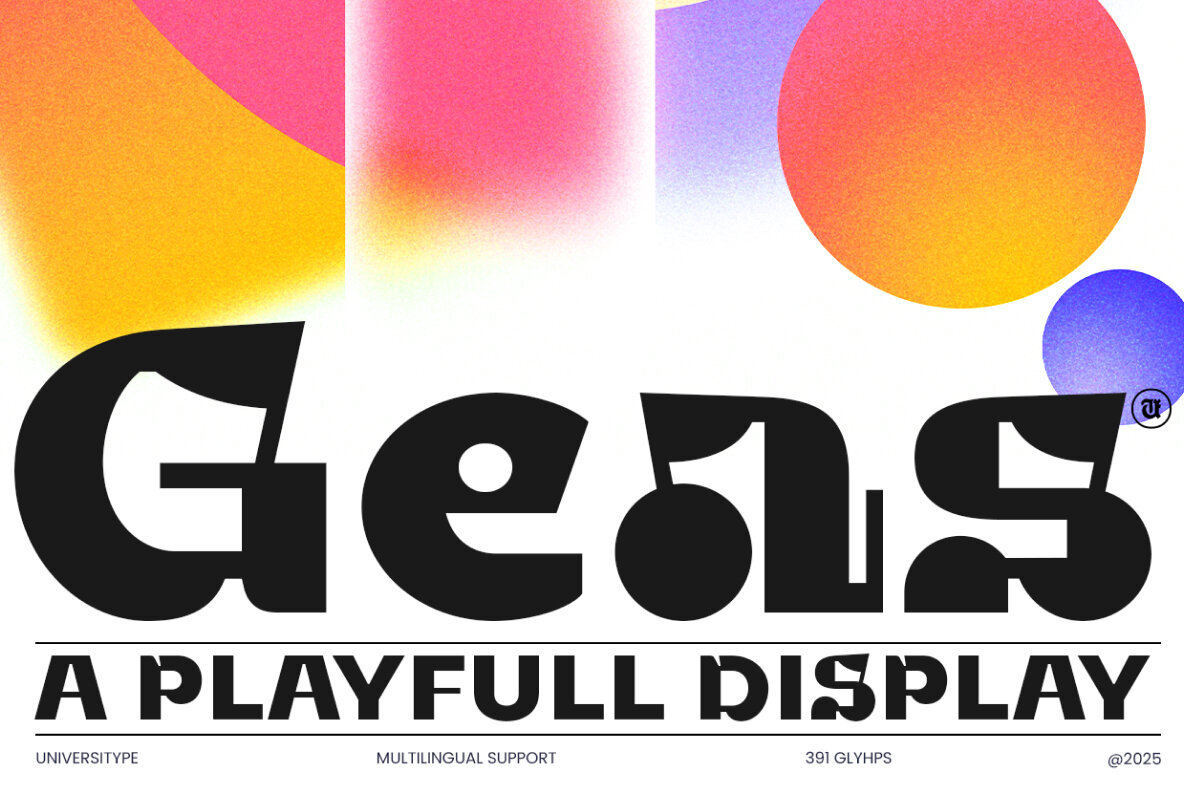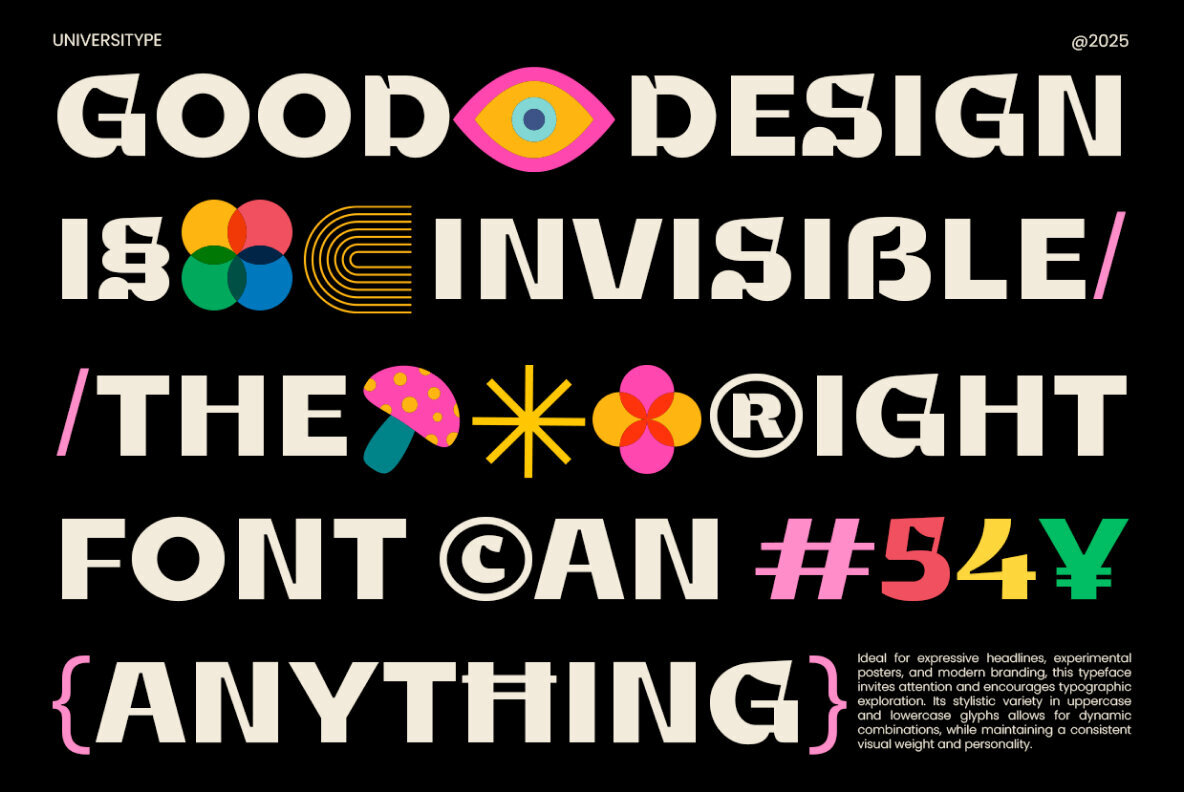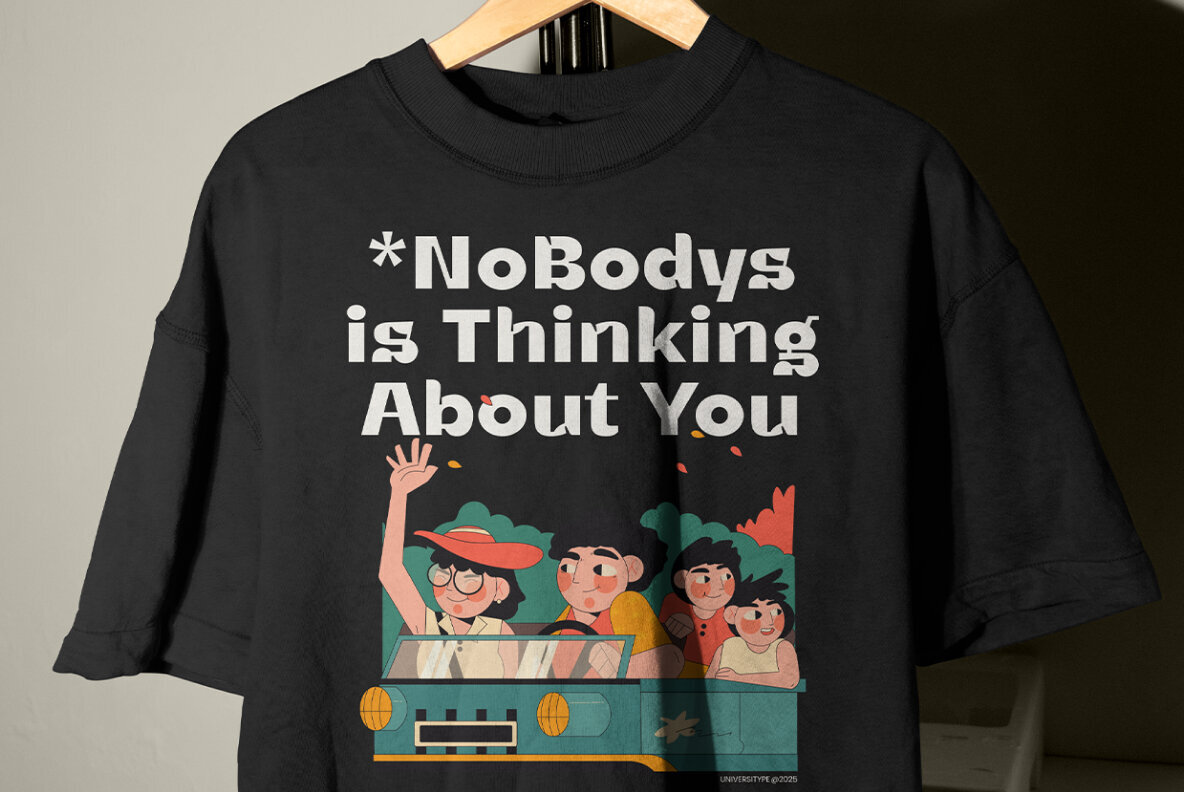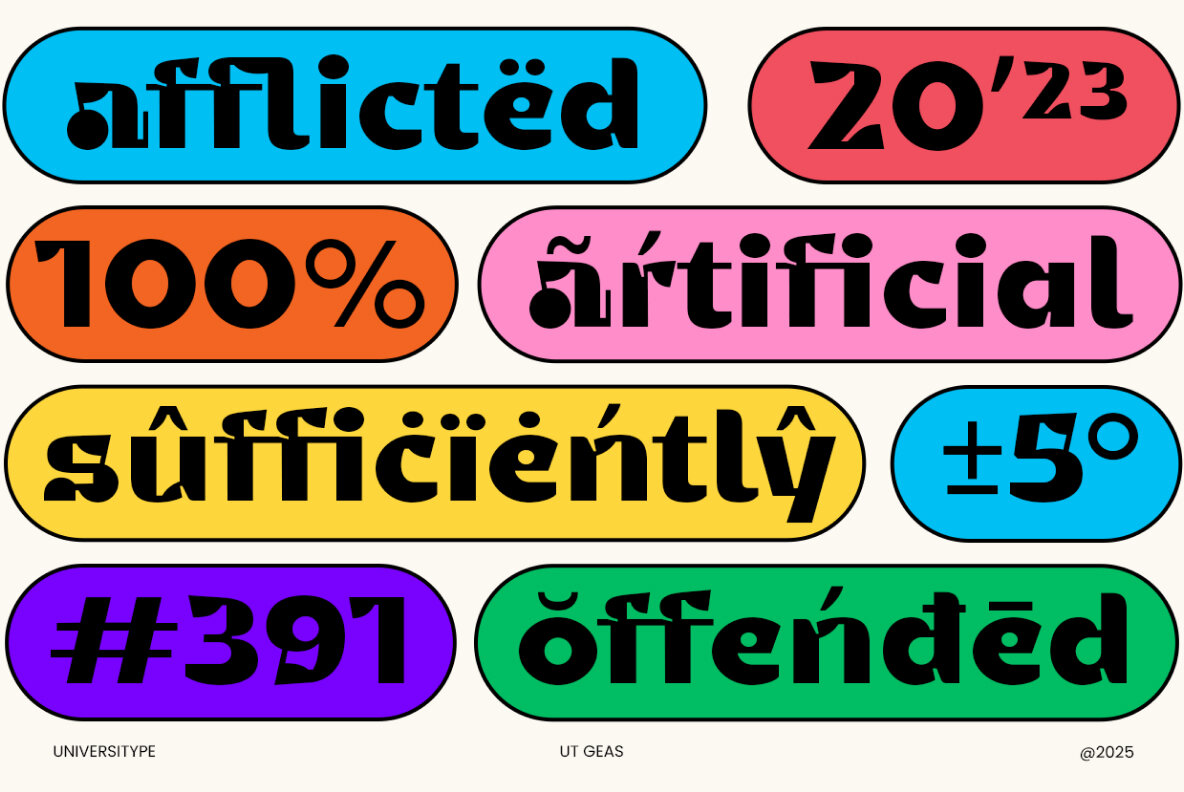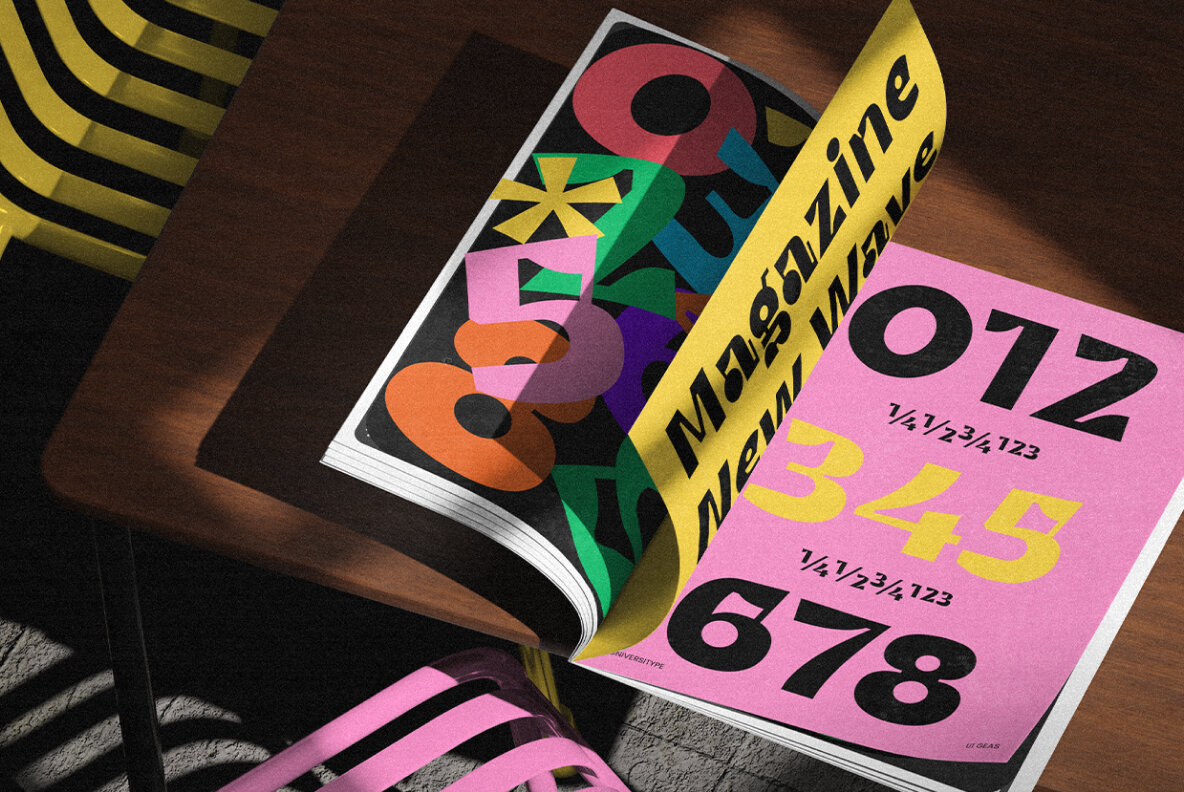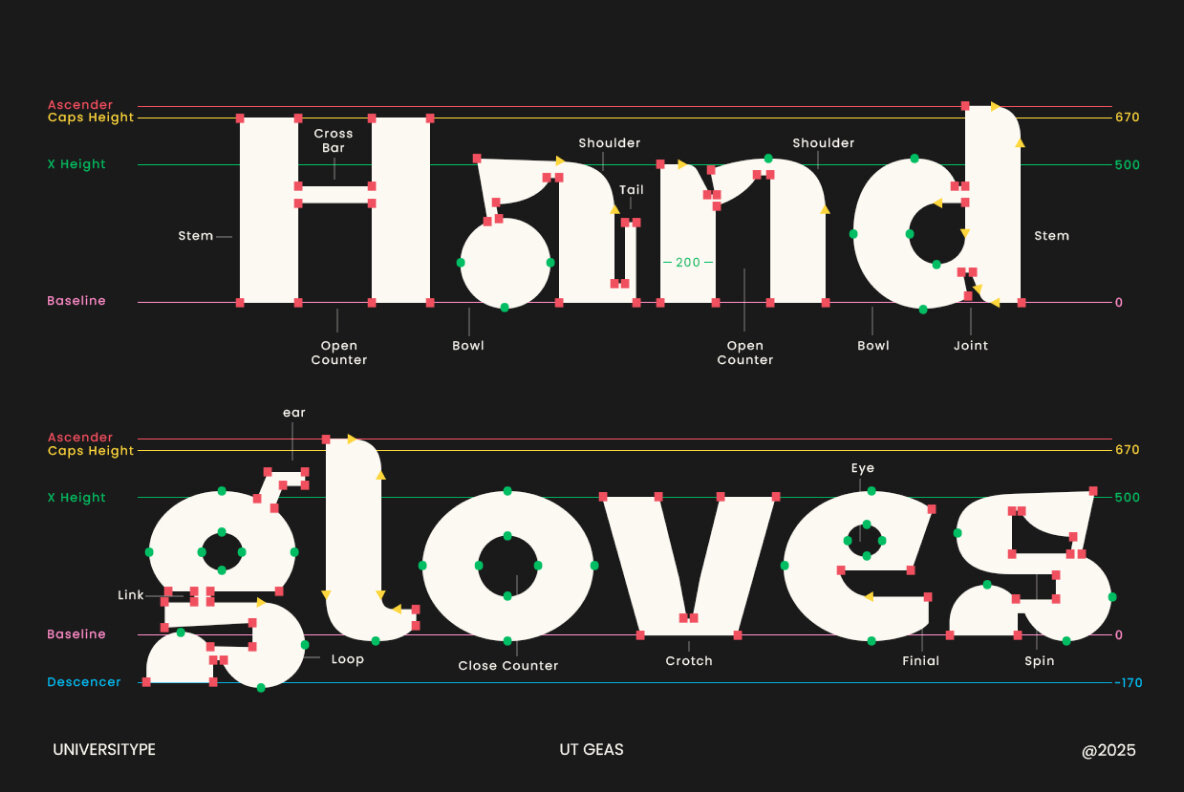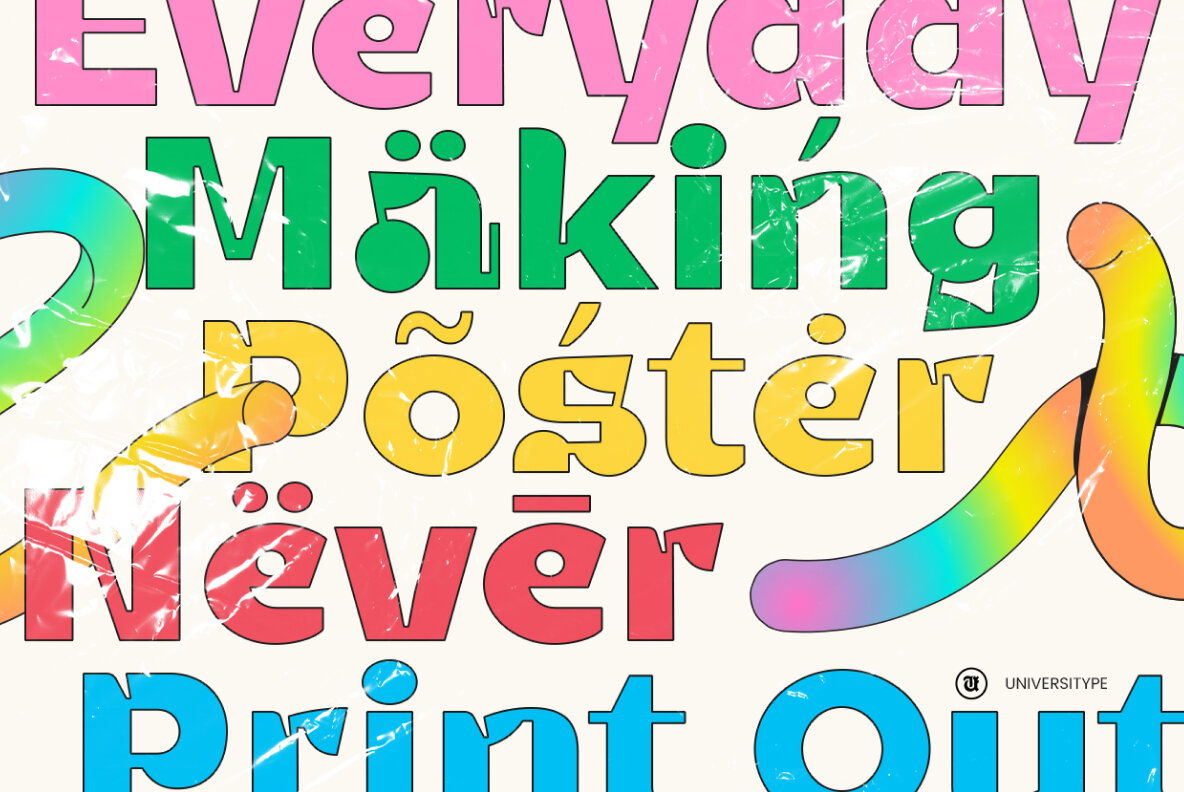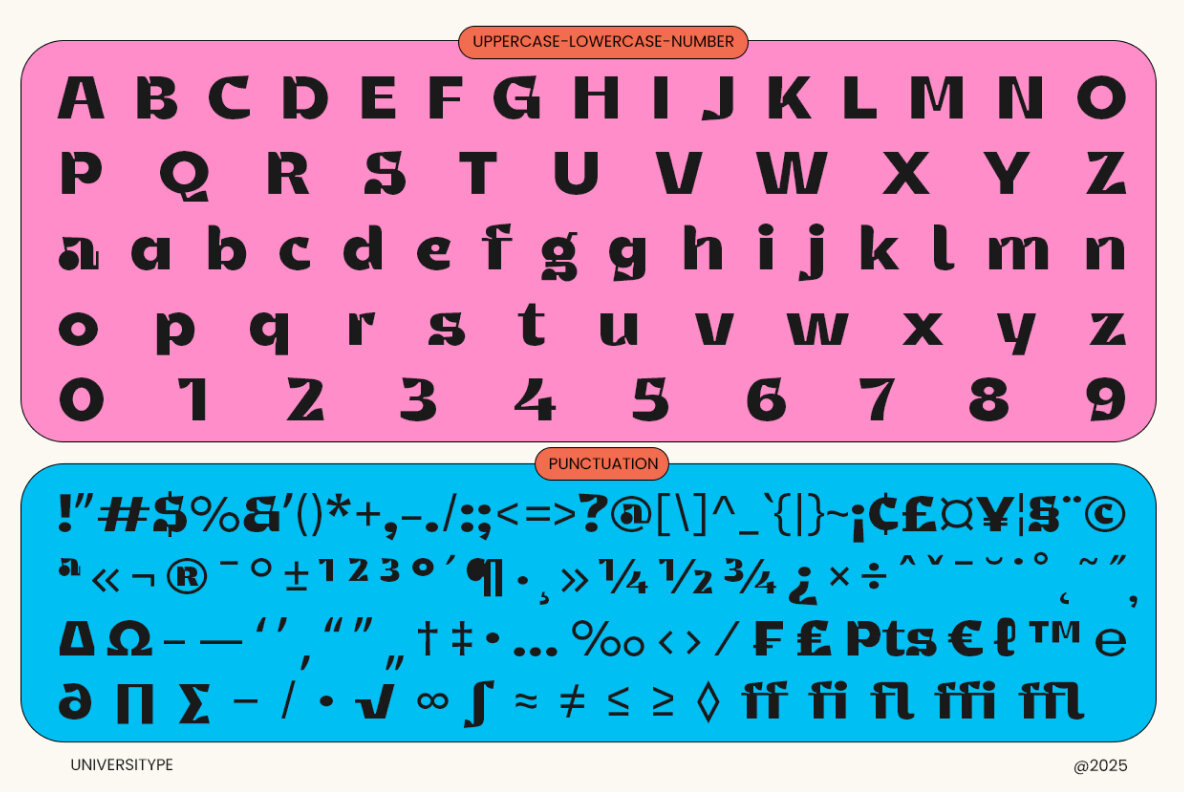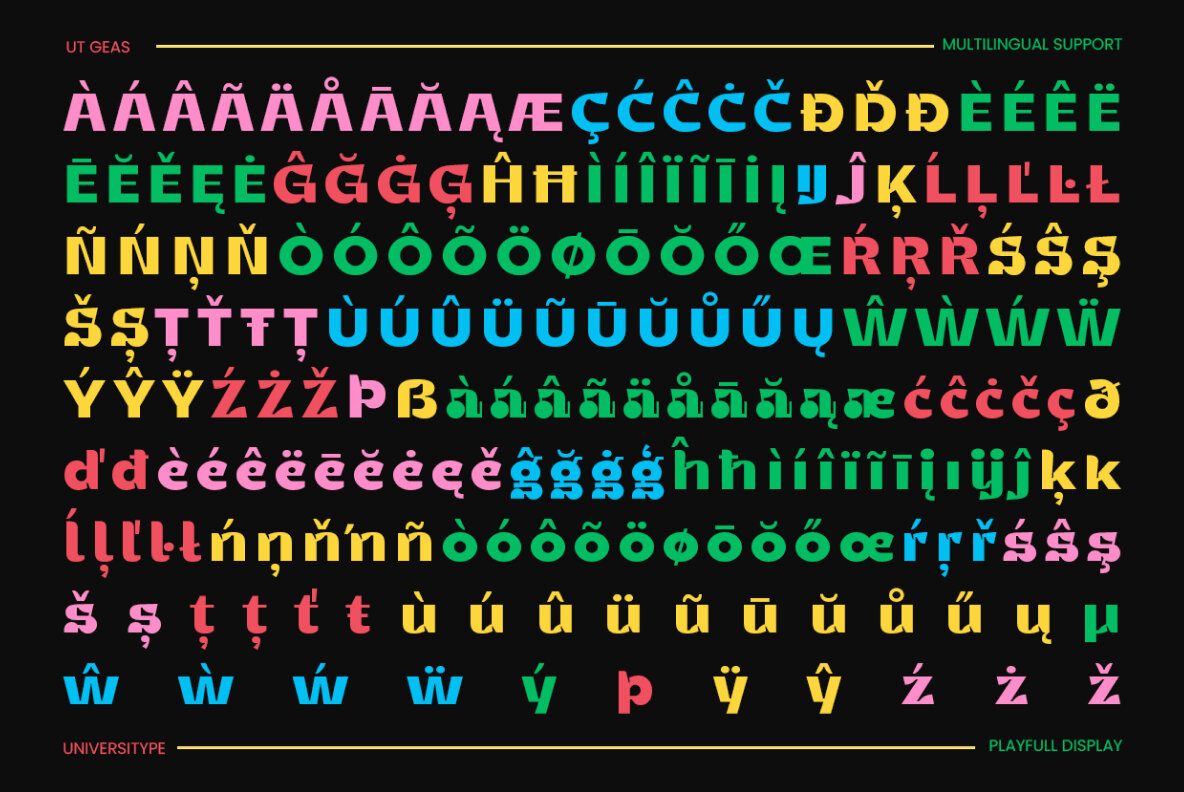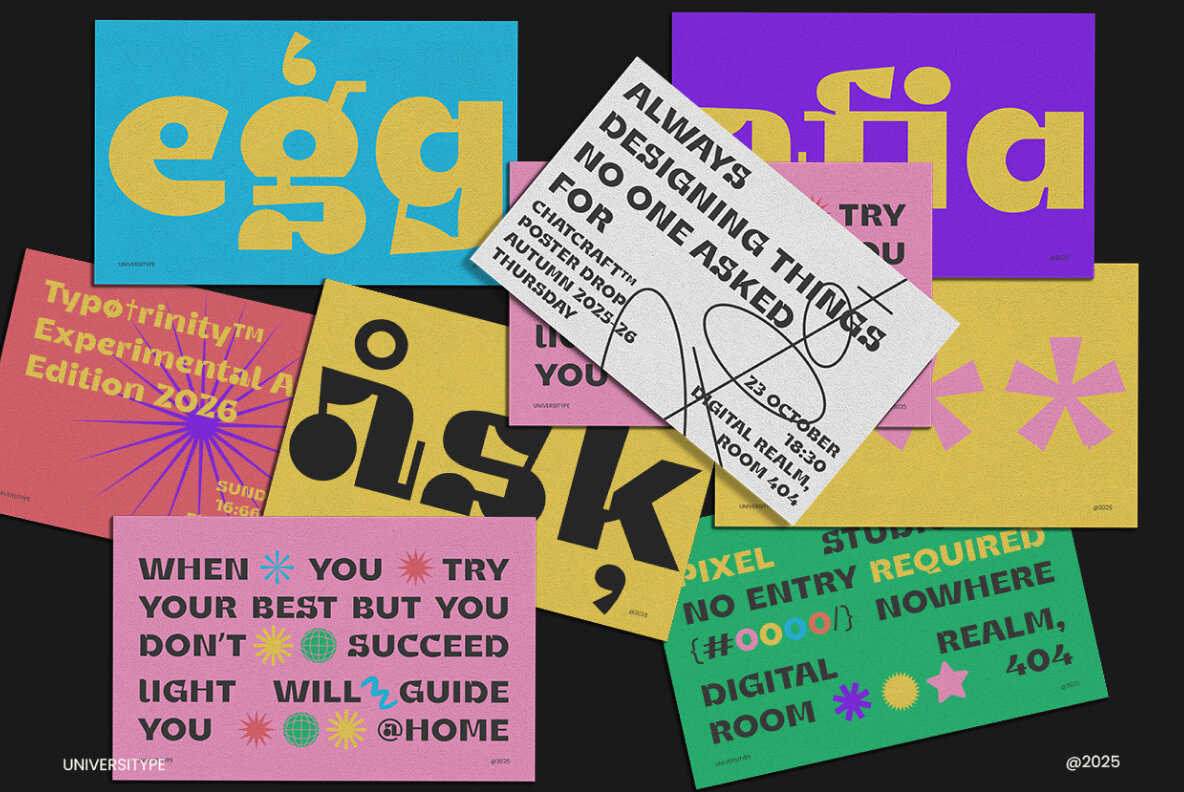
Inject a burst of energy into your design projects with UT Geas Display. Perfectly suited for creating vibrant, engaging layouts, this typeface acts as a lively companion in elevating your creativity. Whether crafting an impactful poster, a playful logo, or a character-filled social media post, UT Geas doesn't merely communicate - it captivates. UT Geas is ideal for those who dare to push boundaries. It's the go-to choice for designers who experiment with layouts, marketers seeking to captivate an audience, and creatives who use typography as a canvas. If your message requires a storytelling style beyond ordinary text, UT Geas is your match. The Inspiration Behind the Design With roots in retro lettering and street art, UT Geas draws its strength from the past and the avant-garde. It combines nostalgia and irreverence, embodying creativity with a touch of whimsy.UT Geas Display: Energetic Typeface for Dynamic Designs
Designed for Nonconformists
Enthralling Features
Perfect For: